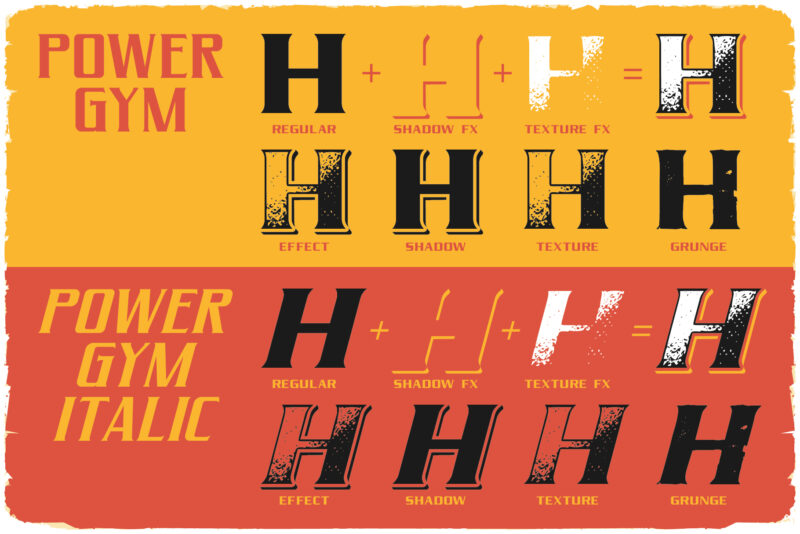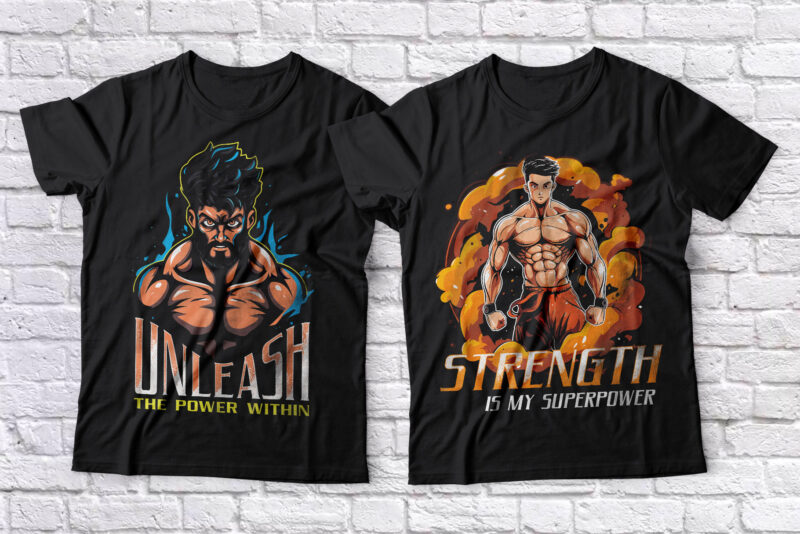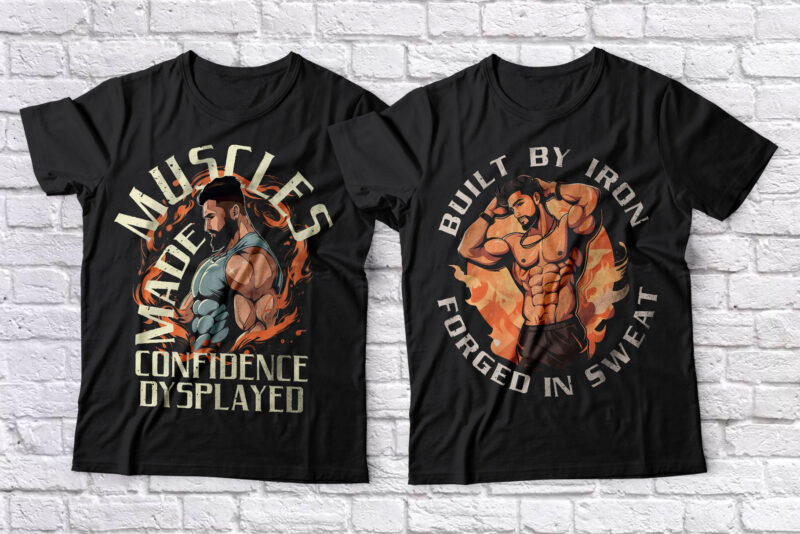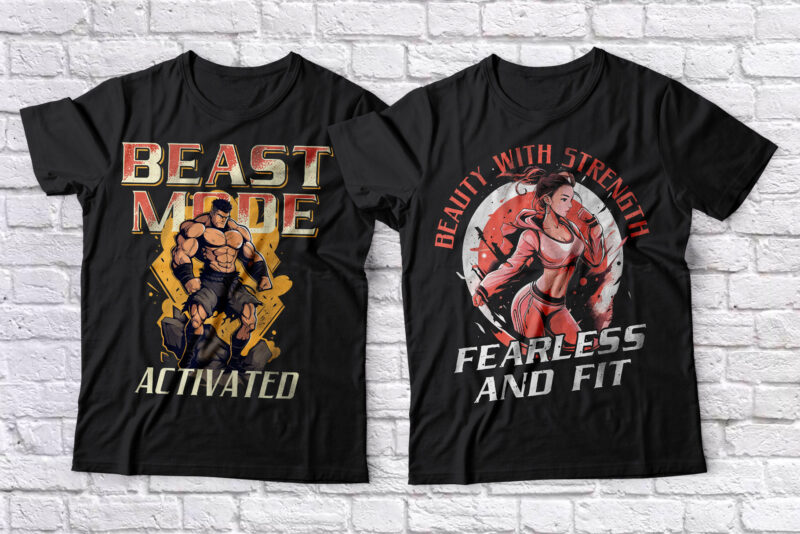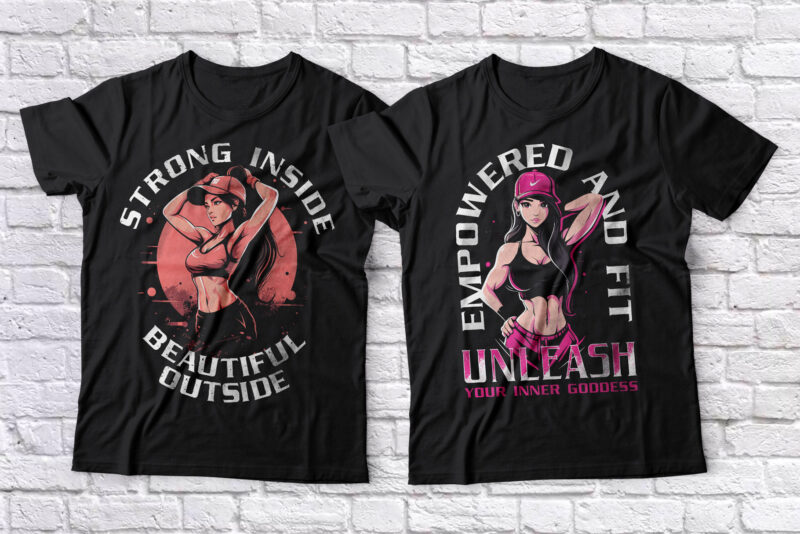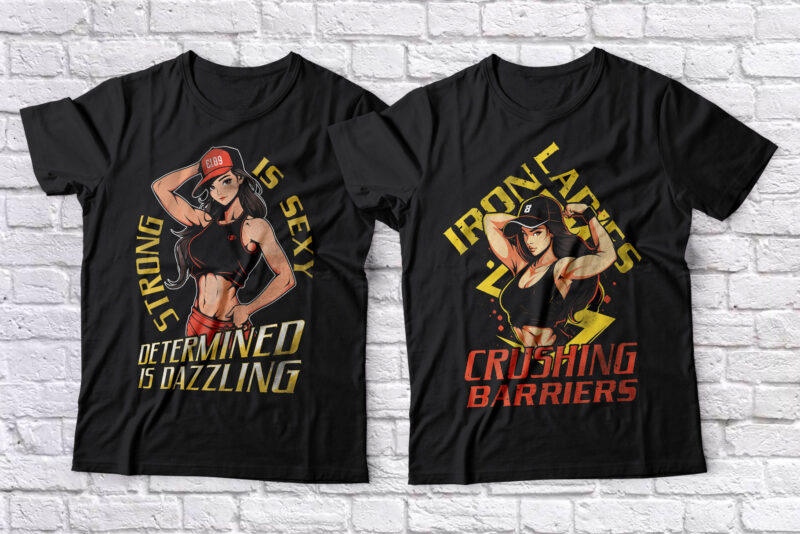
Power Gym 10 editable t-shirt designs with unique font
Introducing original label font named Power Gym. This font family has an additional characters and multilungual support (check out all available characters on previews). Regular and Script fonts has seven styles: Regular, Effect, Shadow, Texture, Shadow FX, Texture FX, Grunge. This font will look good on any sport styled designs like a poster, T-shirt, label, logo, etc.
Features:
• A lot of additional symbols and multilingual support.
• Two different fonts that combine to create a chic vintage look.